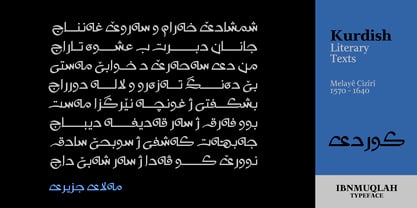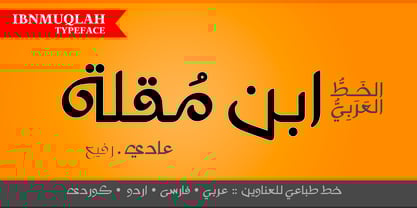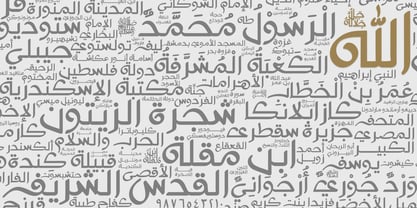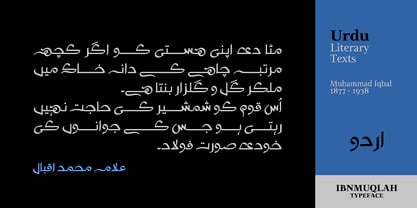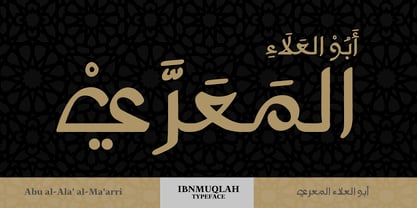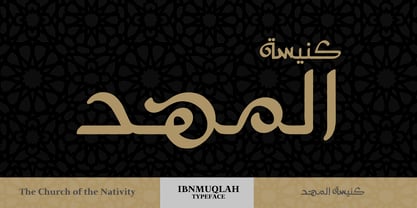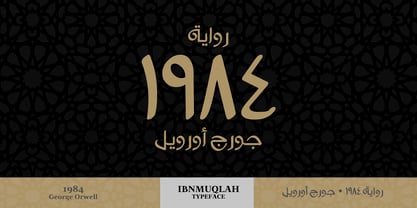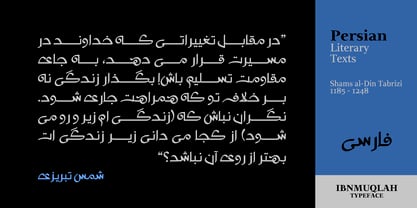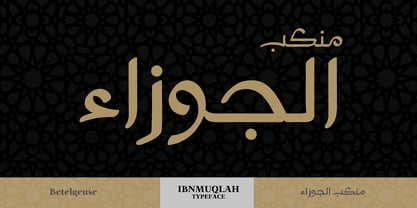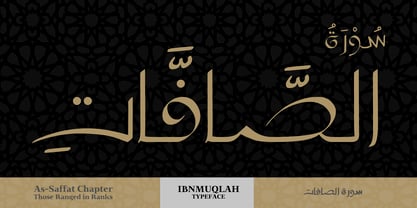
Ibnmuqlah
The Ibnmuqlah Font Family was designed by Eyad Al-Samman and published by Sammantype. Ibnmuqlah contains 2 styles and family package options. More about this family
Abu Ali Muhammad ibn Ali ibn Muqlah (885–940), commonly known as Ibn Muqlah, was a pivotal figure in the history of Arabic calligraphy. Born in Baghdad, the capital of the Abbasid Caliphate, he was a high-ranking official who rose to the post of Vizier (Wazir) in the early 10th century. His turbulent political career ended in imprisonment, where he suffered the mutilation of his right hand and tongue before his death in prison on 20 July 940. However, Ibn Muqlah is primarily revered as an innovator in calligraphy. Historians credit him with the invention of the principle of al-Khatt al-Mansub (The Proportioned Script), which established geometric rules for Arabic letterforms. This system is the foundation for the classic scripts, including Thuluth (khatt ath-thuluth) and Naskh (khatt an-naskh). His mastery was celebrated by contemporaries. The scholar Abu Hayyan Al-Tawhidi revered him as 'a prophet in the field of handwriting; it was poured upon his hand, even as it was revealed to the bees to make their honey cells hexagonal.' Similarly, Al-Tha’alibi declared: “Ibn Muqlah’s handwriting is an example of beauty, because it is the most beautiful handwriting in the world. No one has seen, nor has anyone narrated, anything like it in its transcendence of description and its magical quality.” “Ibnmuqlah” typeface is a modern, streamlined digital script named in honor of the great calligrapher. It is primarily designed for display use. Its key visual feature is the dynamic contrast between thin and thick curves in its Arabic characters, successfully evoking a classic handwritten style. The typeface supports a wide range of Arabic character sets, making it suitable for composing text (i.e., alphabetical and numerical) in languages such as Arabic, Urdu, Persian, and also Kurdish. Its design is particularly striking and eye-catching in large printed formats, making it ideal for headlines, titles, brand names, packaging, and signage. Consequently, it is well-suited for books’ covers, large advertisements (such as light boards), magazine and newspaper titles, products, logos, and artistic applications in public spaces like streets, metro stations, and satellite channels’ branding. This modern scripting typeface delivers full, seamless integration of essential Arabic diacritics—including damma, shadda, sukūn, fatḥa, and kasra—for every letterform. This robust feature ensures flawless, practical application and maximum utility across the demanding scripts of Arabic, Urdu, Persian, and Kurdish, making it the perfect choice for professional typographic projects seeking maximum market adaptability and authenticity across diverse linguistic contexts. In point of fact, “Ibnmuqlah” typeface was created deliberately by the humble typographer Eyad Al-Samman to honor the enduring legacy of the brilliant calligrapher Ibn Muqlah, the inventor of the proportional system that standardized the classic, widely used, and illustrious; Thuluth and Naskh Arabic scripts.
Sammantype is a private foundry dedicated for designing typefaces and fonts in different character sets for many clients who have different cultures. The foundry was founded in 2011 by Eyad Al-Samman. He is a Yemeni author, lecturer, typographer, and freelance graphic designer. He was born in Sana'a, the capital city of Yemen, and still lives there. Eyad has a bachelor degree in electrical and computer engineering and a master's degree in business administration. The first font commercialized by Sammantype and shown in "Myfonts" was Loyolliams which was designed in the late of 2005. Fonts designed in Sammantype are mostly used in typesetting and publishing of different texts including Arabic, Persian, Urdu, Kurdish, Latin, Cyrillic, and other texts. Eyad Al-Samman—as the main typographer of Sammantype—has composed several pangrams. One of them is: "waxy gents chalked over my fab jazzy quip", containing 34 letters.